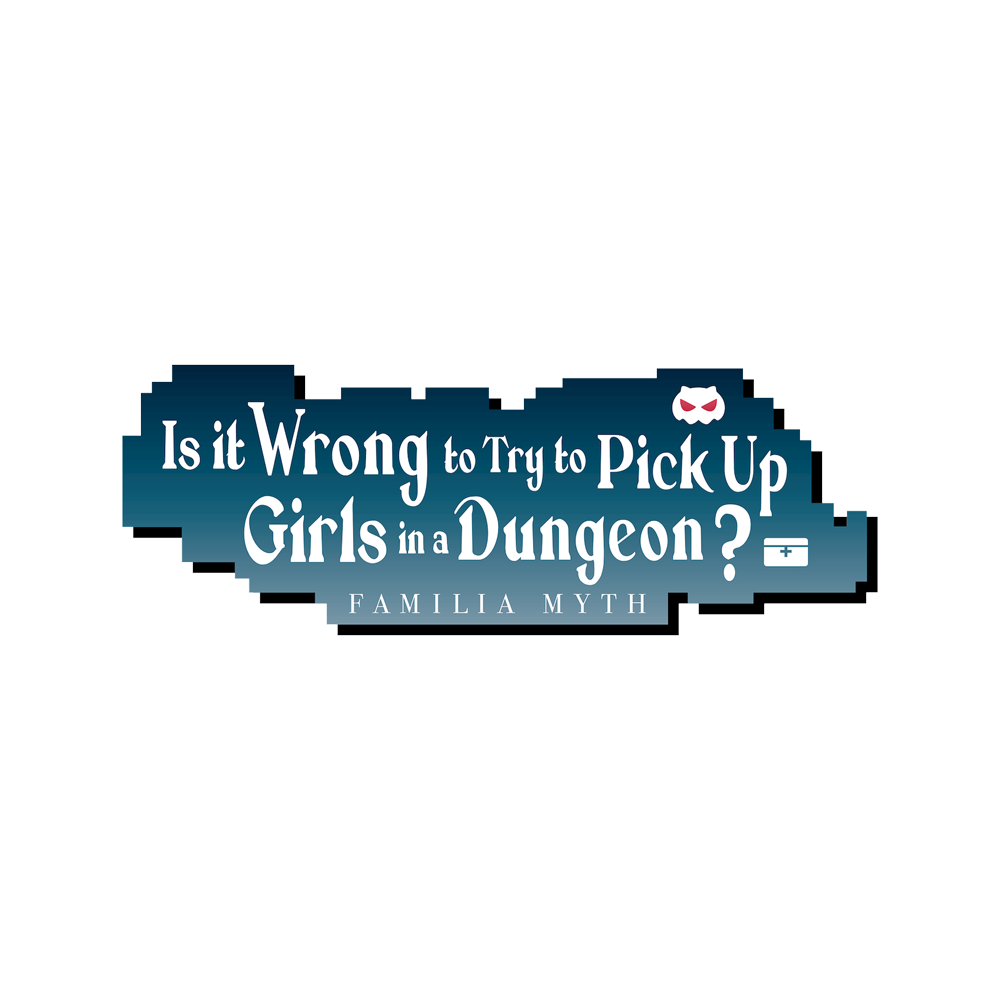
DanMachi Font
AdventureDanMachi also known as Is It Wrong to Try to Pick Up Girls in a Dungeon? is a Japanese light novel series written by Fujino Omori and illustrated by Suzuhito Yasuda. It follows the story of Bell Cranel, a young adventurer who becomes involved in a world of gods, monsters, and magic as he strives to become stronger and protect those he cares about. The series has been adapted into multiple anime and manga adaptations, as well as spin-off novels and video games.
The font chosen for the anime's English title is probably Romance Fatal Serif by Juan Casco's fantasy serif font. You can download the font for free in the Fonts Used Section and use it solely for personal purposes.